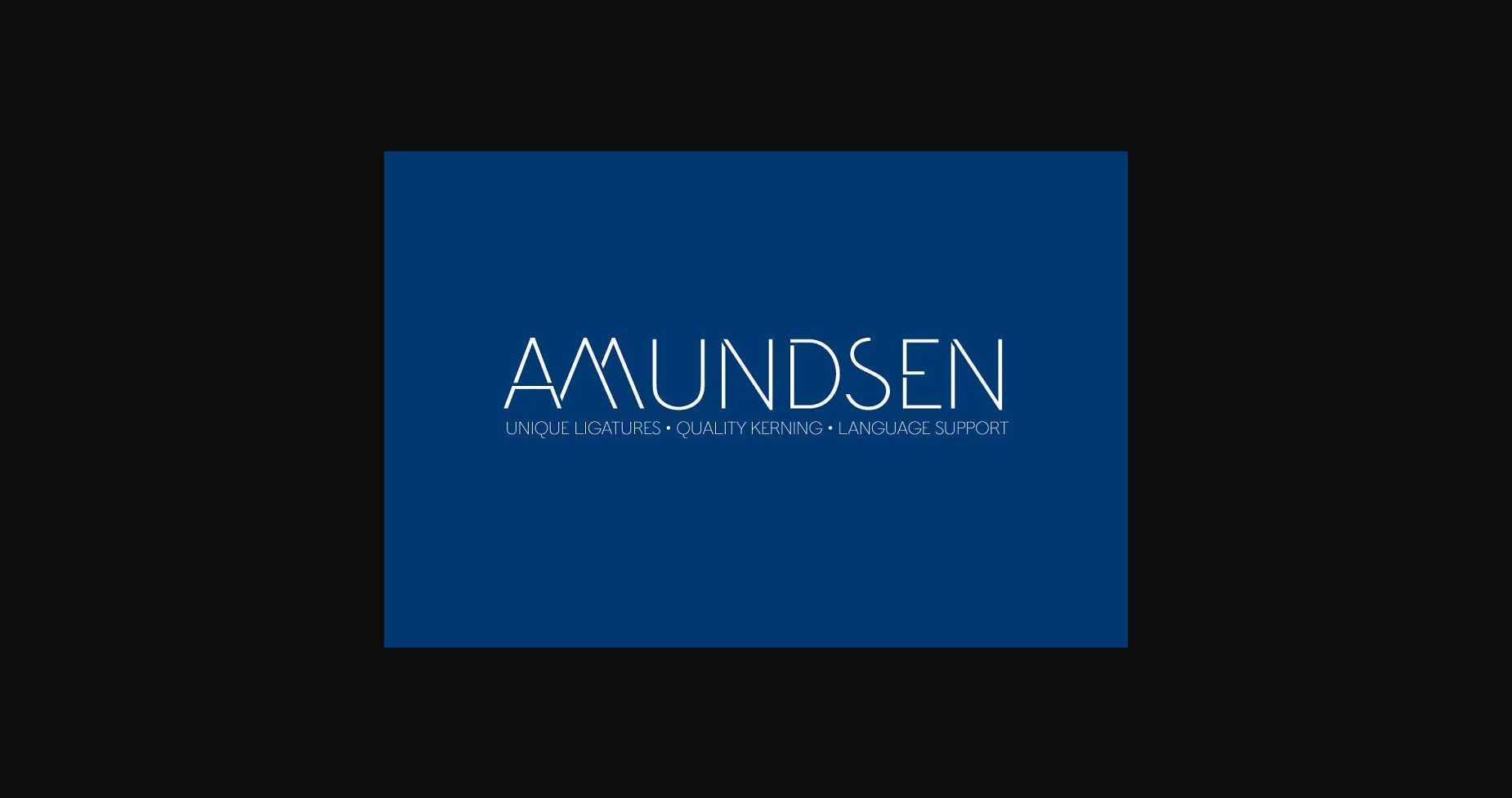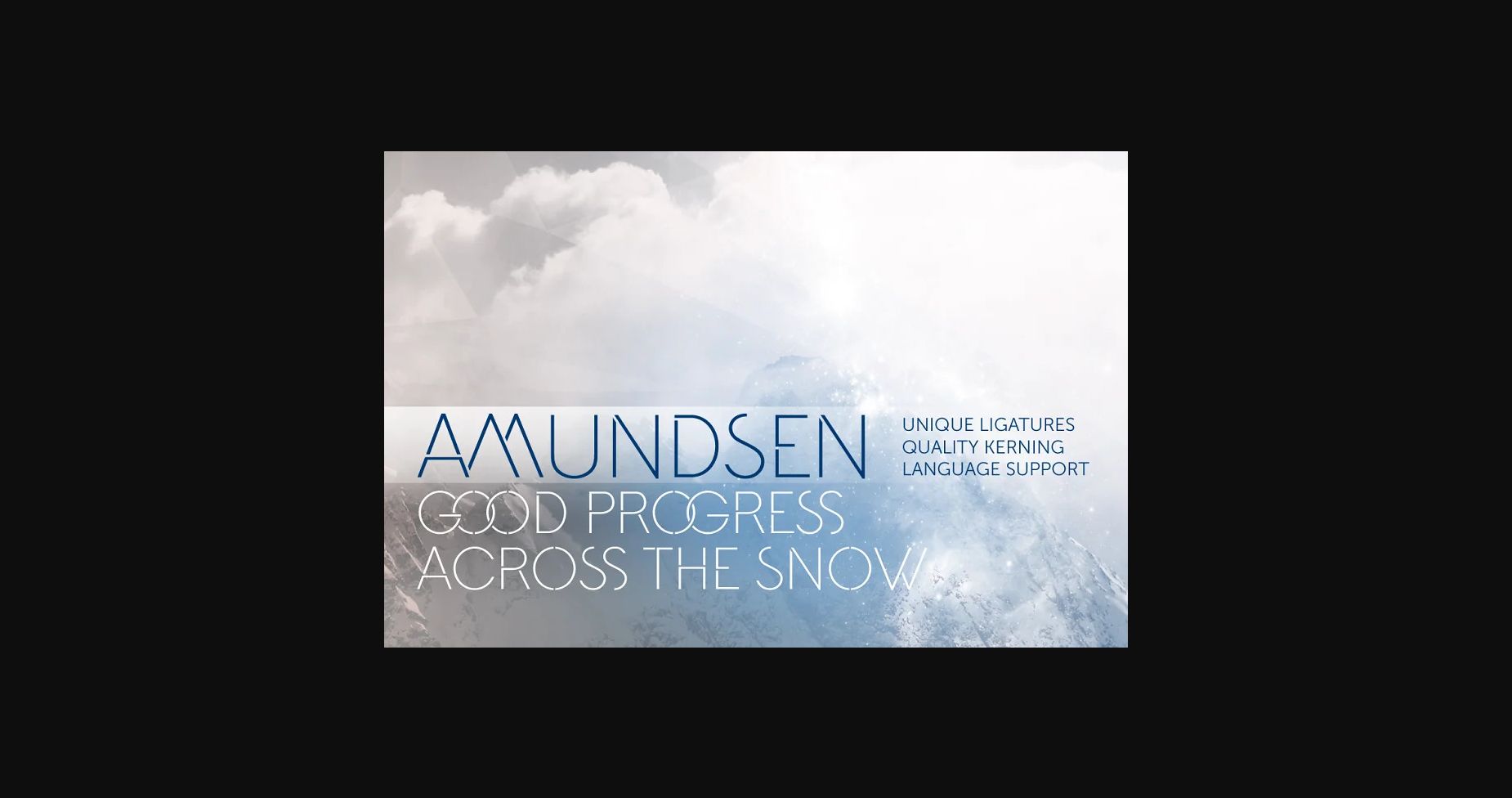
Amundsen Font
About Amundsen Font
Amundsen is a stencil font published by Juraj Chrastina.
Amundsen is an all-caps stencil-like face with a unique look due to several originally shaped glyphs and overlapping letters. The font is equipped with automatic discretionary ligatures and it comes with fine-tuned kerning. As the ligatures combine light letters, the overall look remains balanced even with wider display-oriented spacing. Amundsen supports West as well as Central European languages.